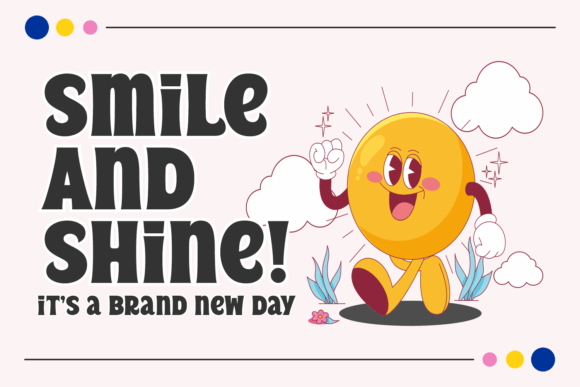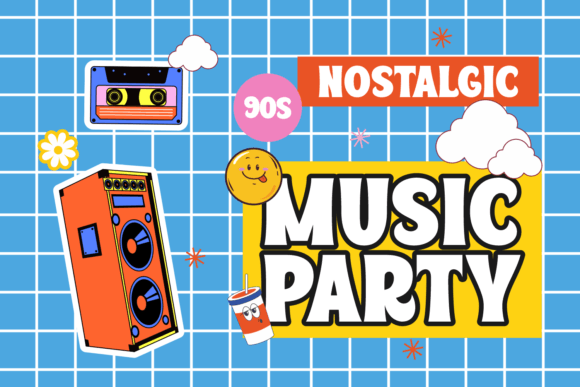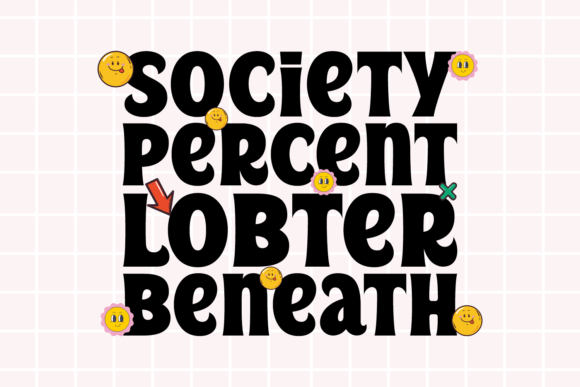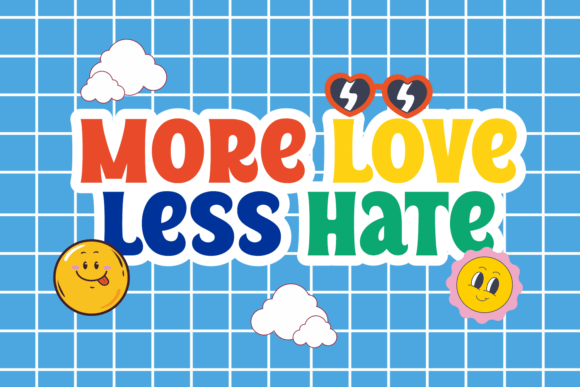
Introduction to Retsco Display Font
Retsco Display is a charming retro-style display font.
Add a touch of joy and style to your typography design with this thick and beautiful typeface Use it to create cute and striking posters, apparel, kids’ t-shirts, advertisements, book covers, titles, signage, and more.